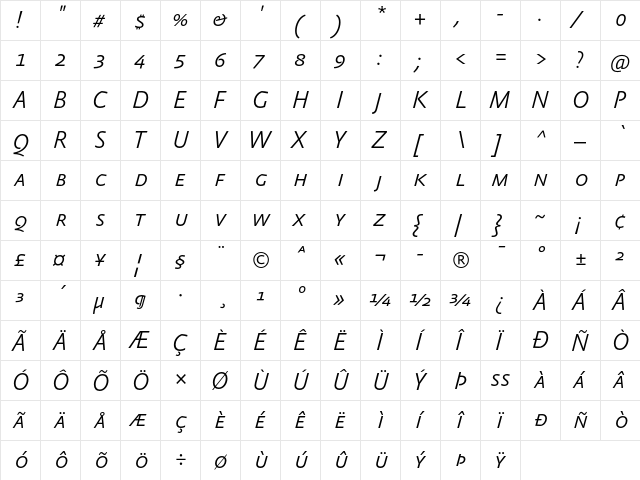
AbsaraSansTF-LightItalicSC Regular Font Preview
Design Context for AbsaraSansTF-LightItalicSC Typeface
AbsaraSansTF-LightItalicSC offers clean, dependable letterforms without strong stylistic allegiance, making it a practical choice for designers who need flexibility. Its italic angle brings a sense of urgency and motion to the letterforms. The delicate stroke weight brings airiness and refinement to layouts.
Pro Tip: Try AbsaraSansTF-LightItalicSC for annotation and caption copy alongside an upright companion — the contrast in angle creates a dynamic but ordered typographic system.